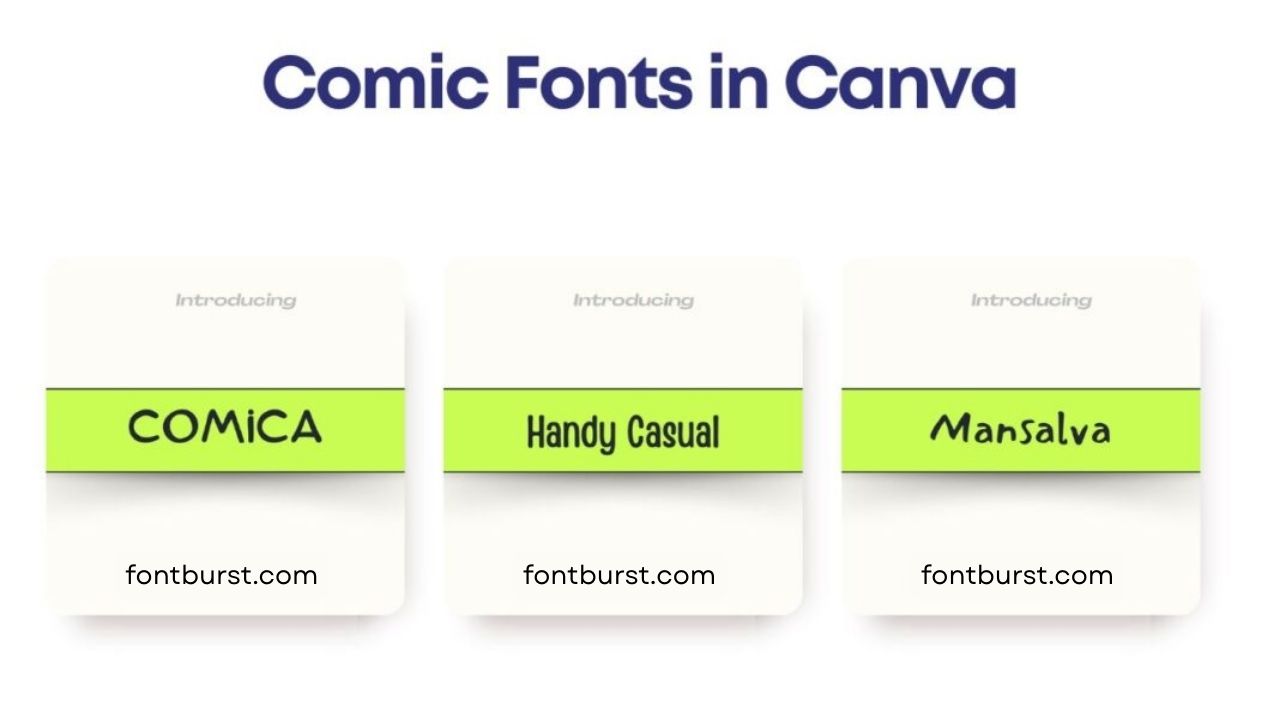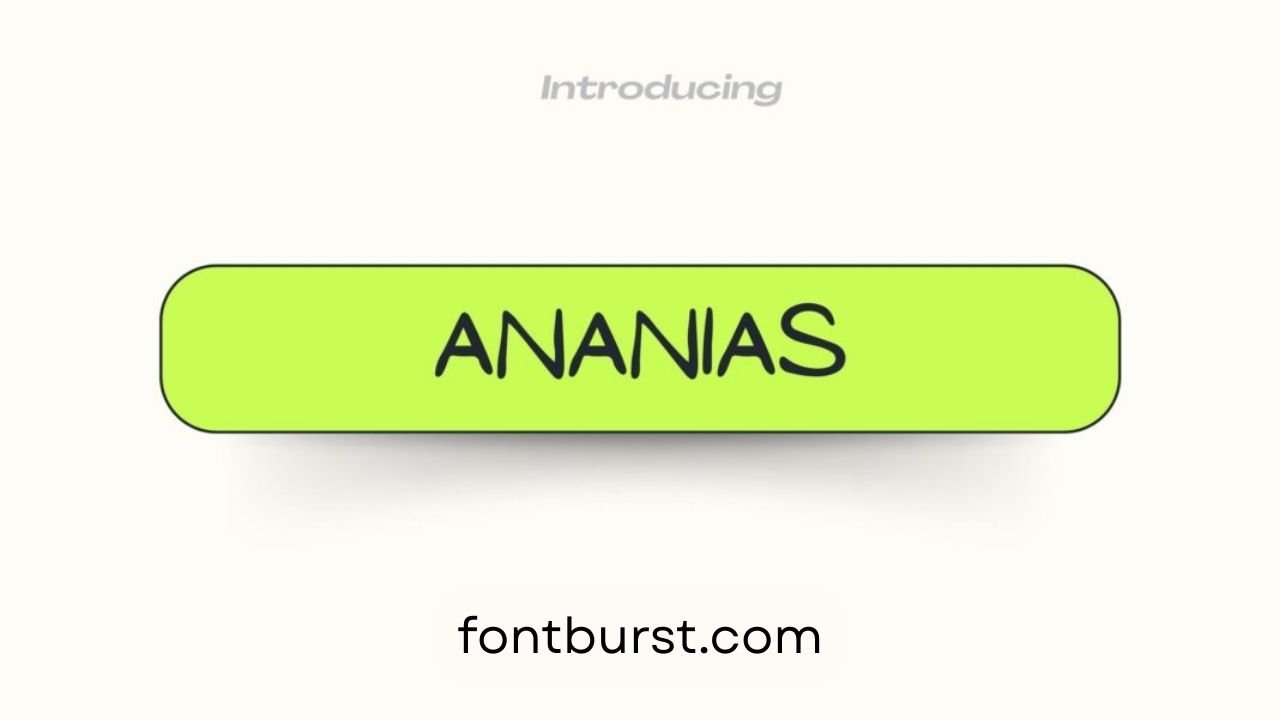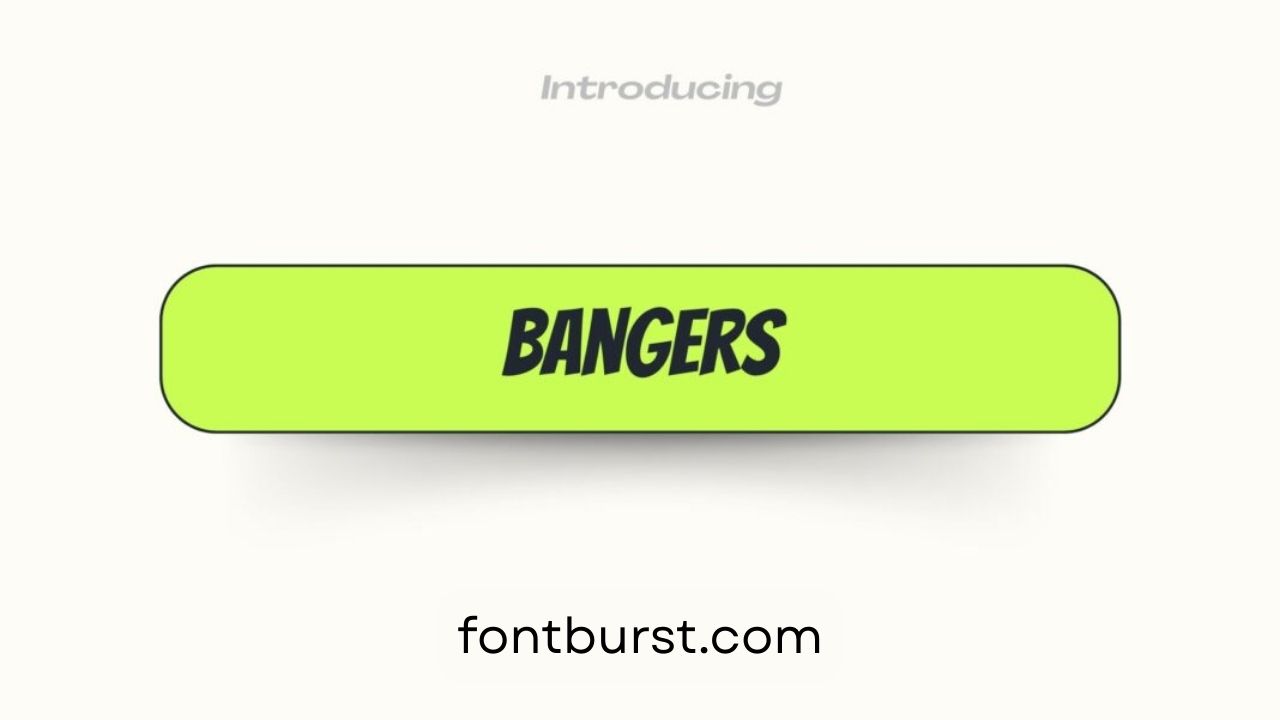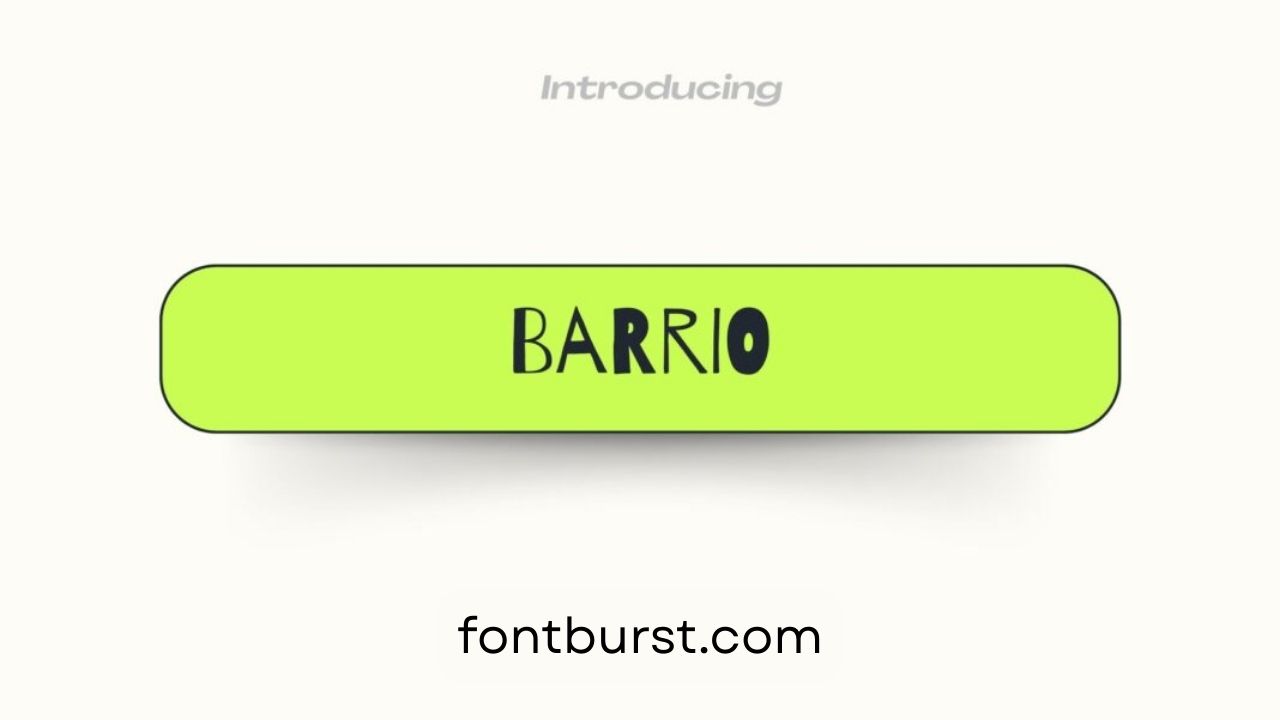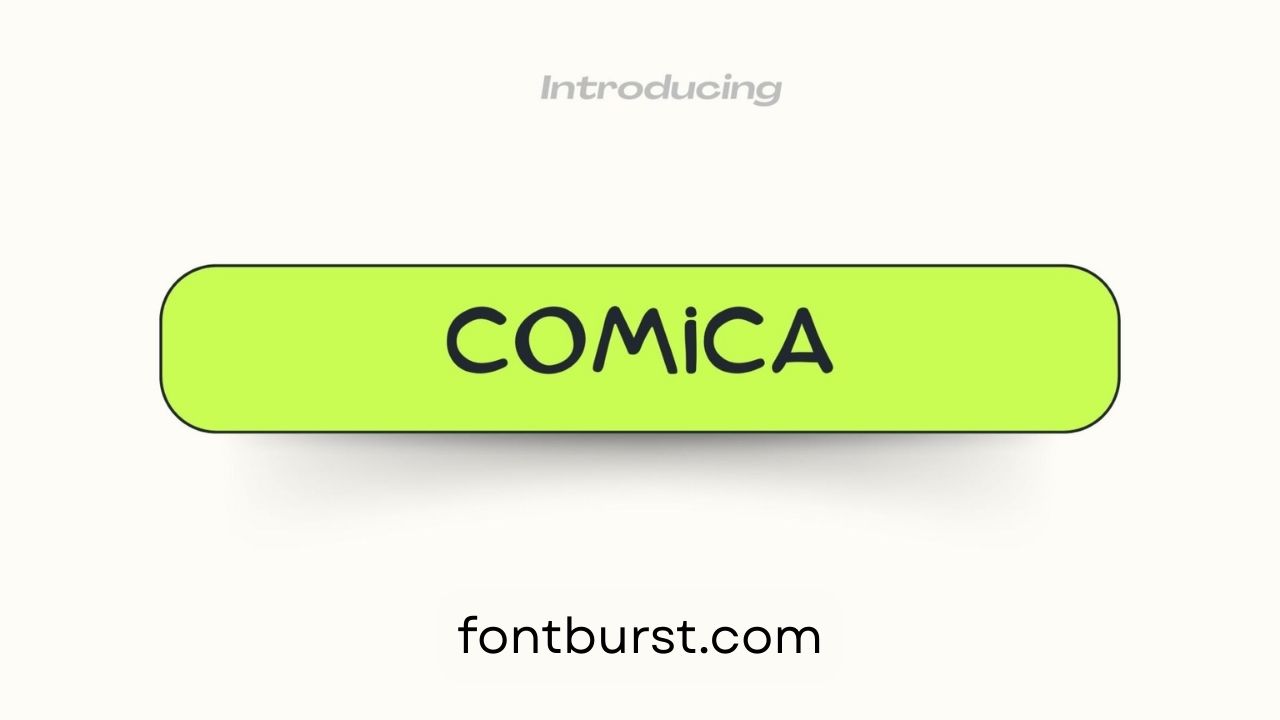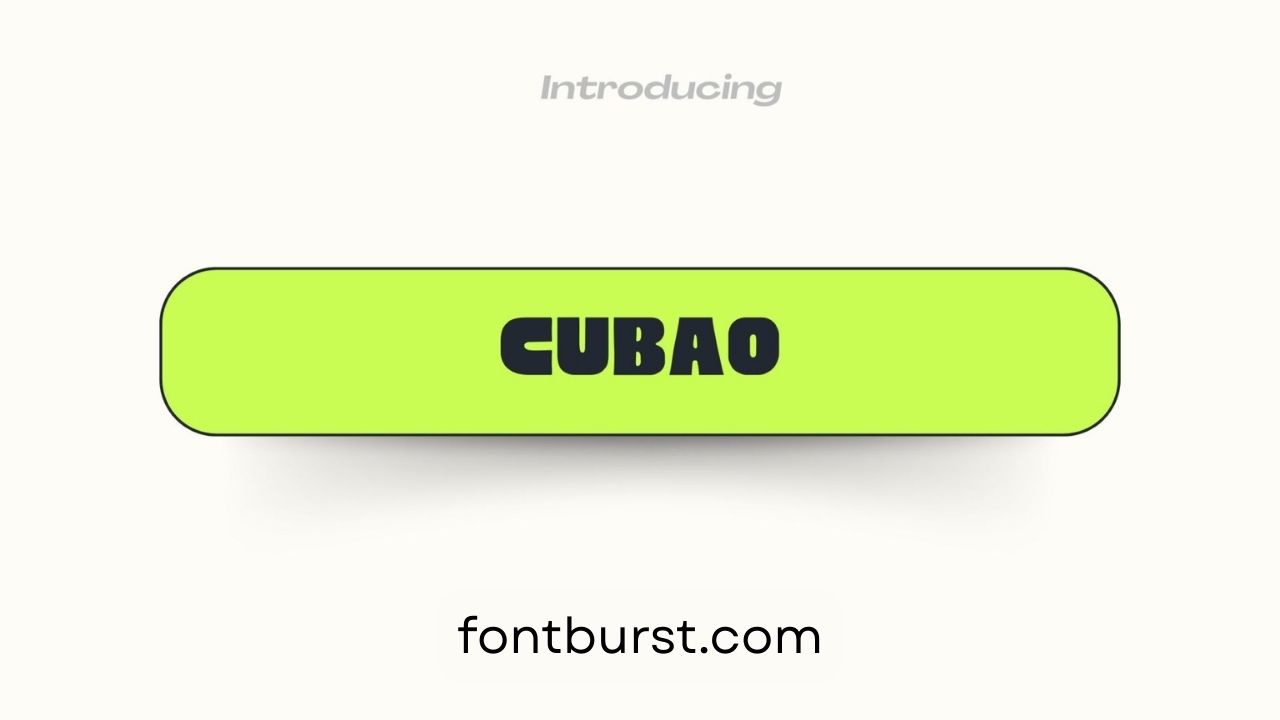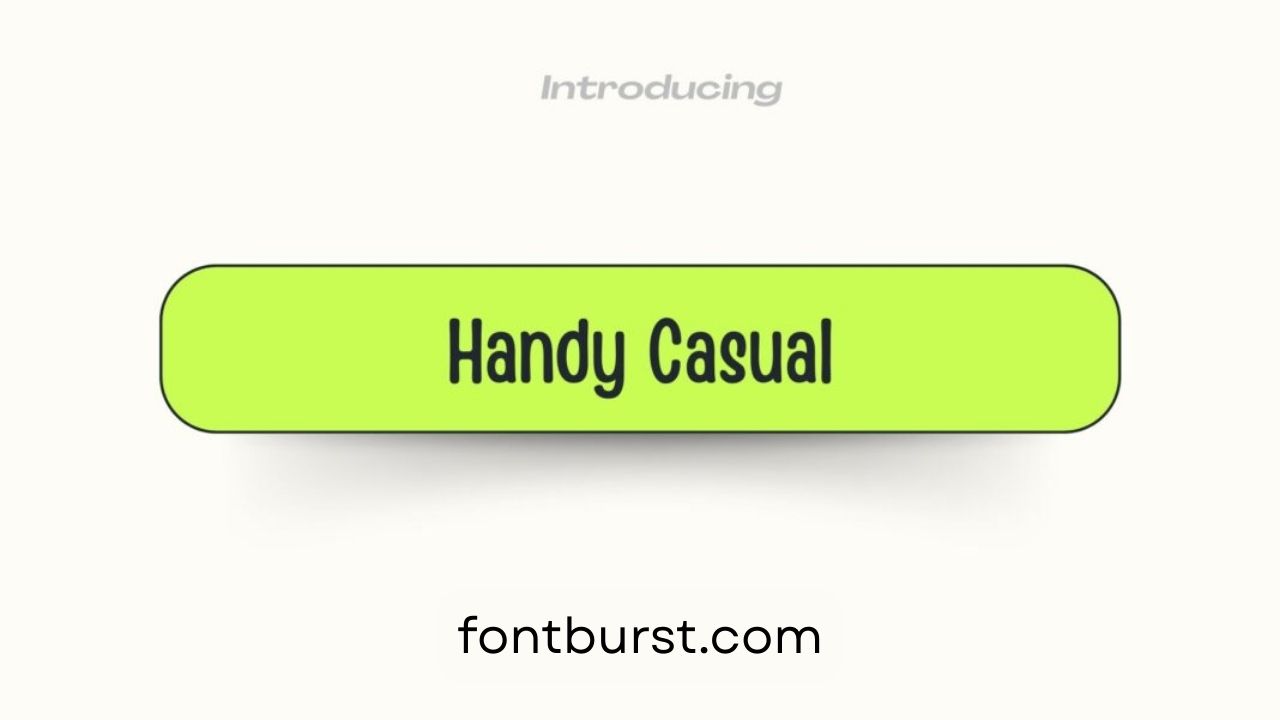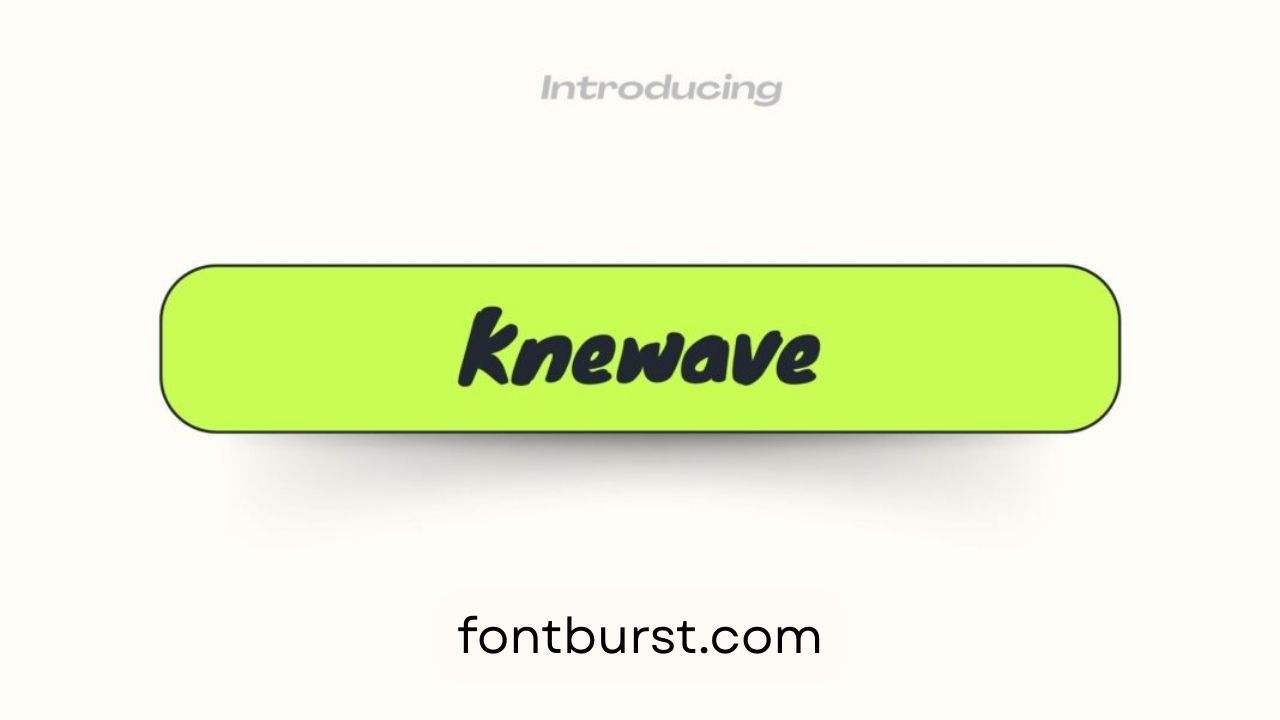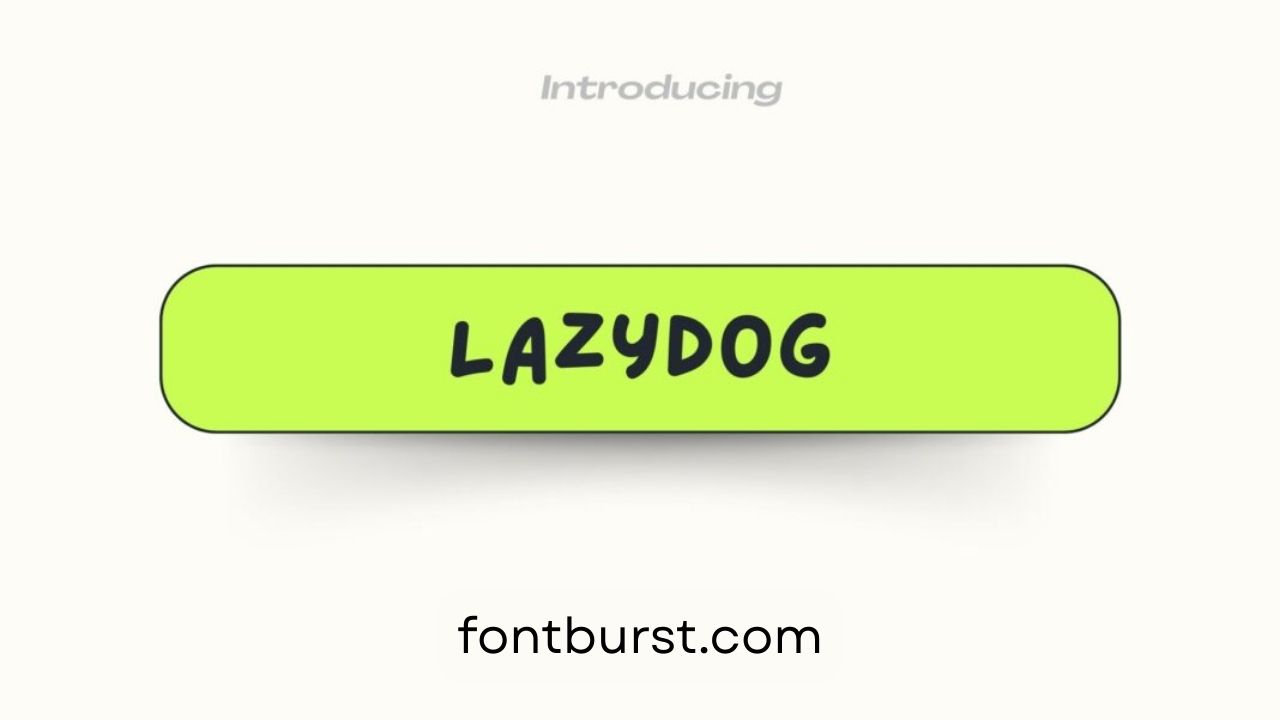
15 Comic Fonts in Canva
If you’re looking to bring life and excitement to your designs, using comic fonts in Canva will be a great way to make your words pop. Canva offers a variety of fonts that can make your titles and headings stand out in a fun and playful way. From bold and dynamic styles to creative, hand-drawn looks, these fonts are perfect for comic book-style designs, posters, and more.
Whether you’re making a comic strip or designing something that needs to grab attention, these fonts offer a lively and energetic vibe. Each font has its own character, making your text more engaging and entertaining. Let’s explore 15 fantastic comic fonts in Canva that are sure to brighten up your designs.
How to Use These Fonts for Comic Design in Canva
1. Choose Your Font: Start by picking a font from the list above that matches the tone of your comic. For action-packed scenes, go for bolder fonts like Bangers or Knewave, while lighter moments might use Lazydog or Litita One for a more playful touch.
4. Change the Font: Highlight the text in your box, then go to the font drop-down menu to select one of the comic fonts. Try out fonts like Comica for bold titles or Cubao for captions to see which style fits best.
6. Use Font Combinations: You can mix fonts for different characters or moods. For example, use Barrio for a fun character’s speech and Ananias for bold narration text.
By following these steps, you can bring your comic designs to life using the wide variety of comic fonts available in Canva.
Best Comic Fonts in Canva
Comica Font
Comica Font stands out with its bold, energetic style, perfect for comic book-style headings. It brings excitement and makes your text noticeable, ideal for bold titles and impactful designs that need a lively and playful look.
Noot Font
Noot Font offers thick, clean letters that bring attention to your text. It’s great for creating fun designs like party invitations or comic strips. With its simple but bold style, Noot adds a vibrant flair to any design, making it pop easily.
Cubao Font
Cubao Font has a hand-drawn look that gives your design a creative, comic-like feel. It’s great for adding uniqueness to your text, making it perfect for fun posters, titles, or comic captions with its casual, artistic style.
Ananias Font
Ananias Font channels classic comic book vibes with bold letters. It’s playful and easy to read, making it a great choice for impactful headings and lively designs where you want your text to be the center of attention.
Abiah Font
Abiah Font has a rounded, classic comic look that fits perfectly in fun, engaging designs. Its vintage comic style is great for lively titles or creative banners that need a bold, distinctive appearance.
Handy Casual Bold Font
Handy Casual Bold Font looks hand-written, giving your design a fun and casual appearance. It’s bold and friendly, ideal for projects that need approachable and lively text, making it perfect for creative comic-style work.
Lazydog Font
Lazydog Font offers a playful and relaxed look. Its hand-drawn style adds creativity to your text, making it a fun option for comic captions or casual designs that need a cheerful and unique feel.
Karoll Font
Karoll Font is clean and simple, making it perfect for any comic-style design. Its smooth lines make it easy to read, while still bringing a playful element to your headings, titles, or even speech bubbles in comics.
Litita One Font
Litita One Font is quirky and fun, with playful curves that bring lighthearted energy to your text. Perfect for designs where you want to create a sense of fun, it works well in both titles and captions.
Knewave Font
Knewave Font has wavy, dynamic letters that grab attention immediately. Its bold style is ideal for action-packed designs, giving your text an energetic boost that stands out, especially in exciting comic scenes.
Raanan Sans Serif Font
Using comic fonts in your design work can completely transform your text into something fun and eye-catching. These 15 fonts are easy to use, making them perfect for anyone wanting to add a burst of creativity to their designs. Try them out and see how they can bring excitement to your work!